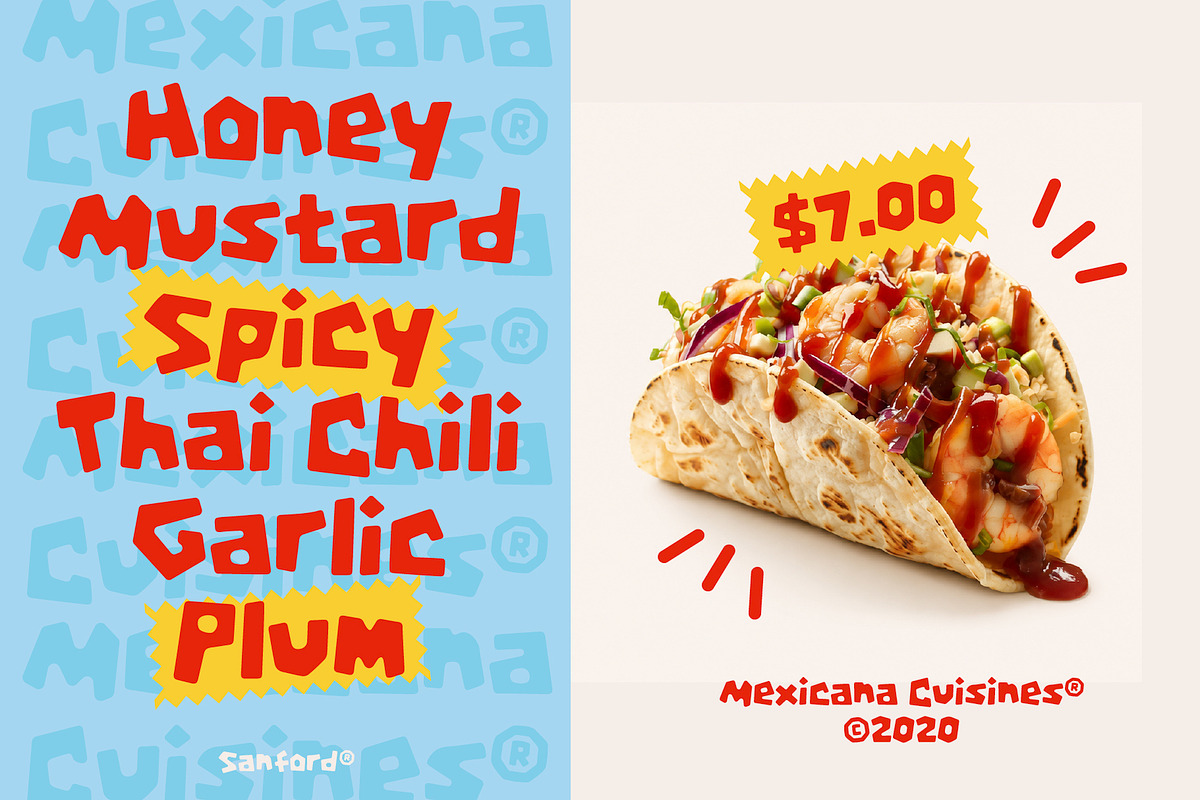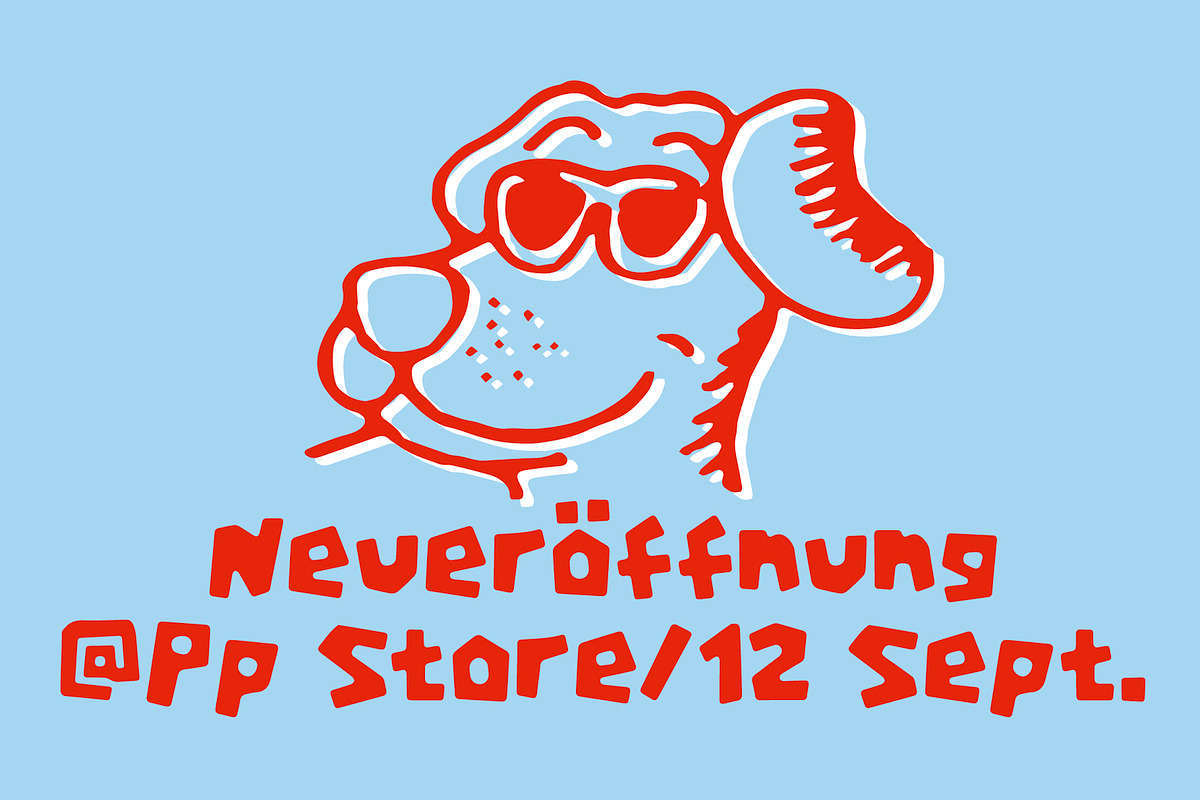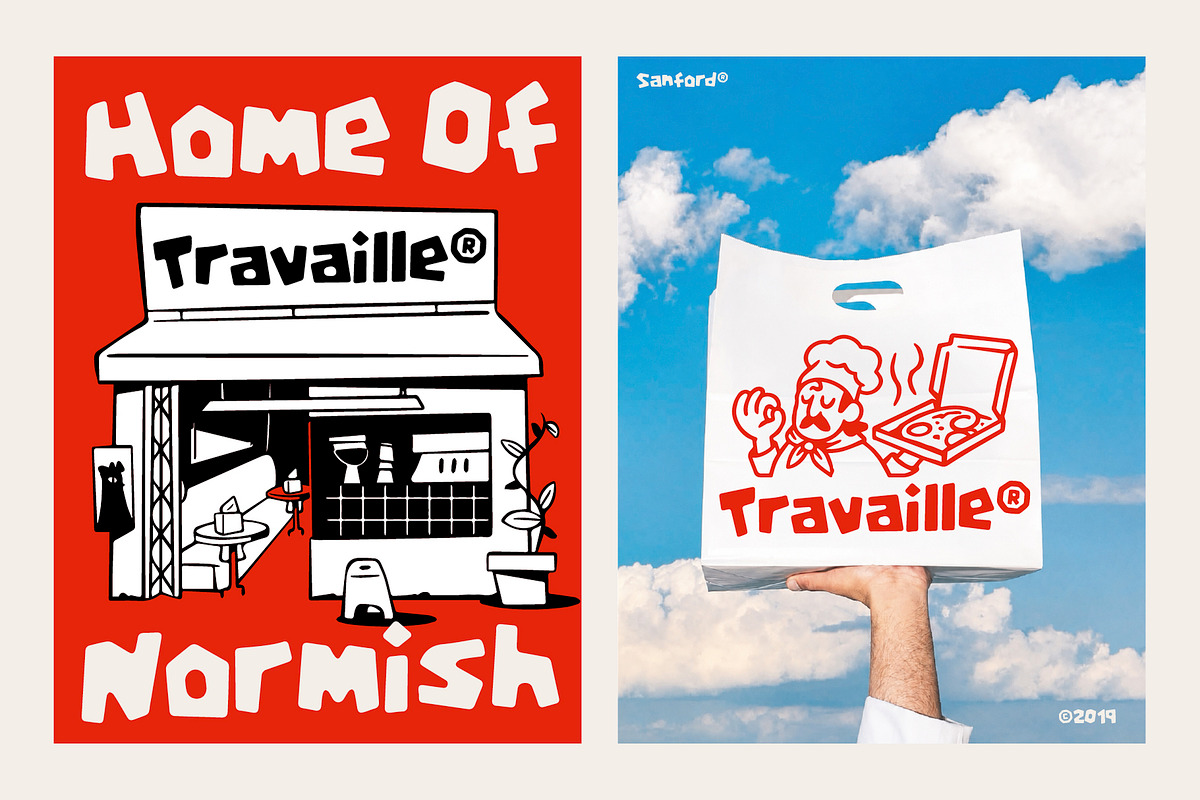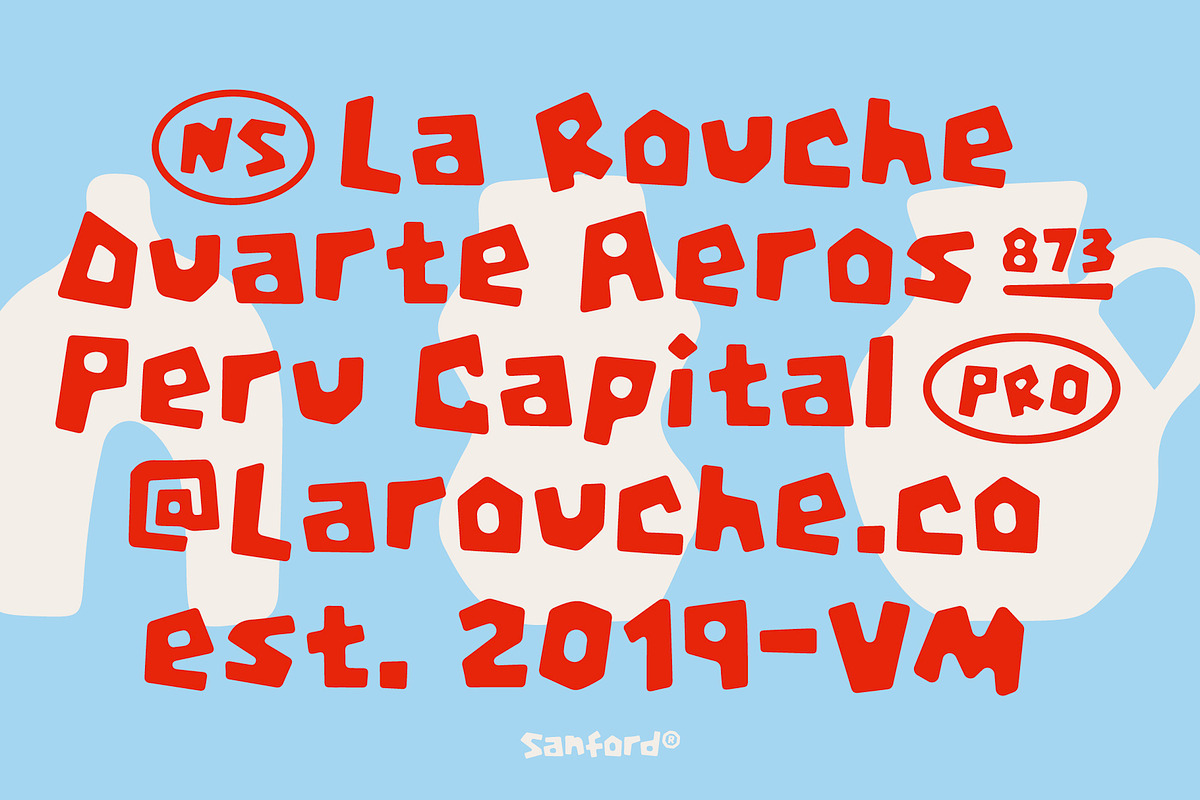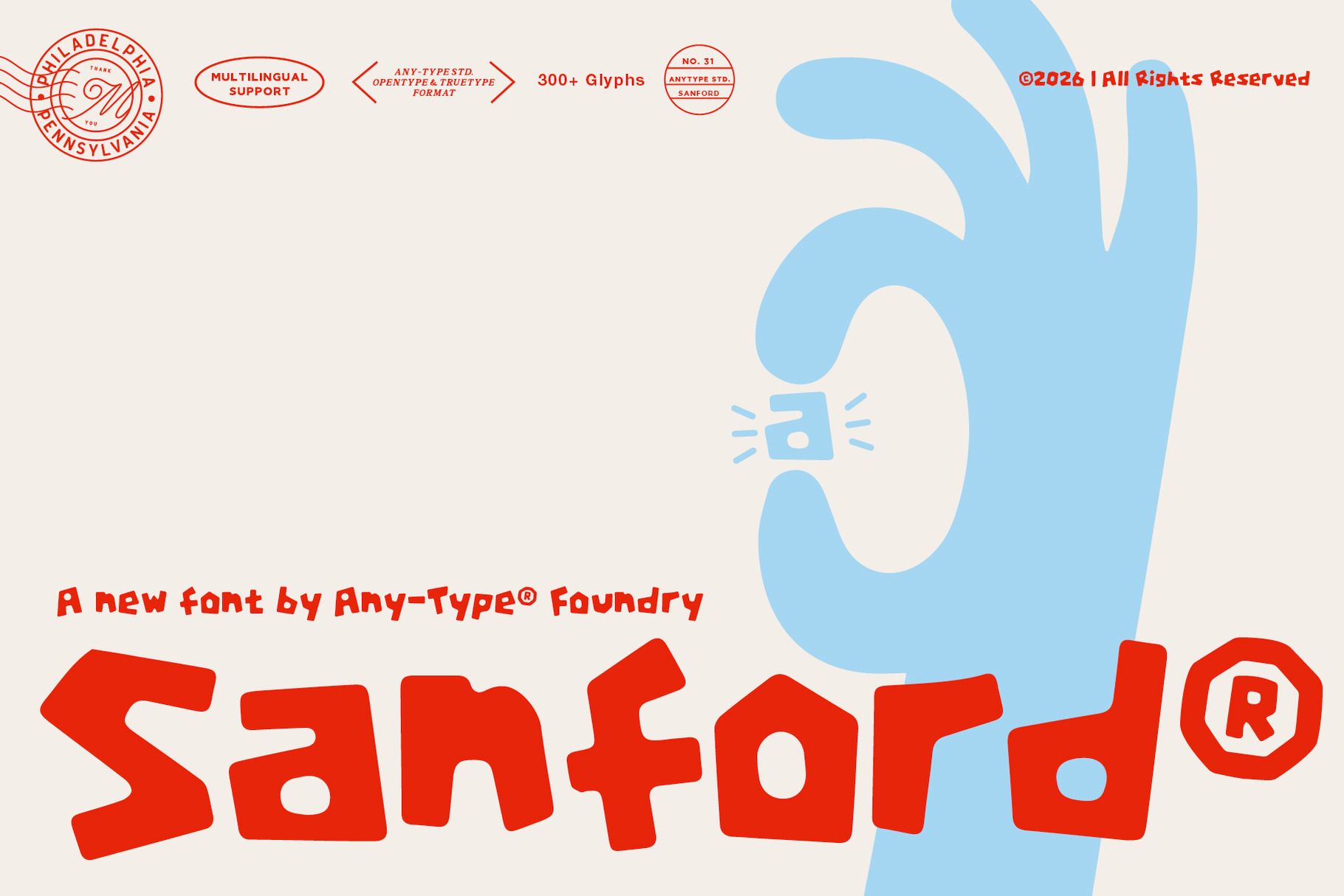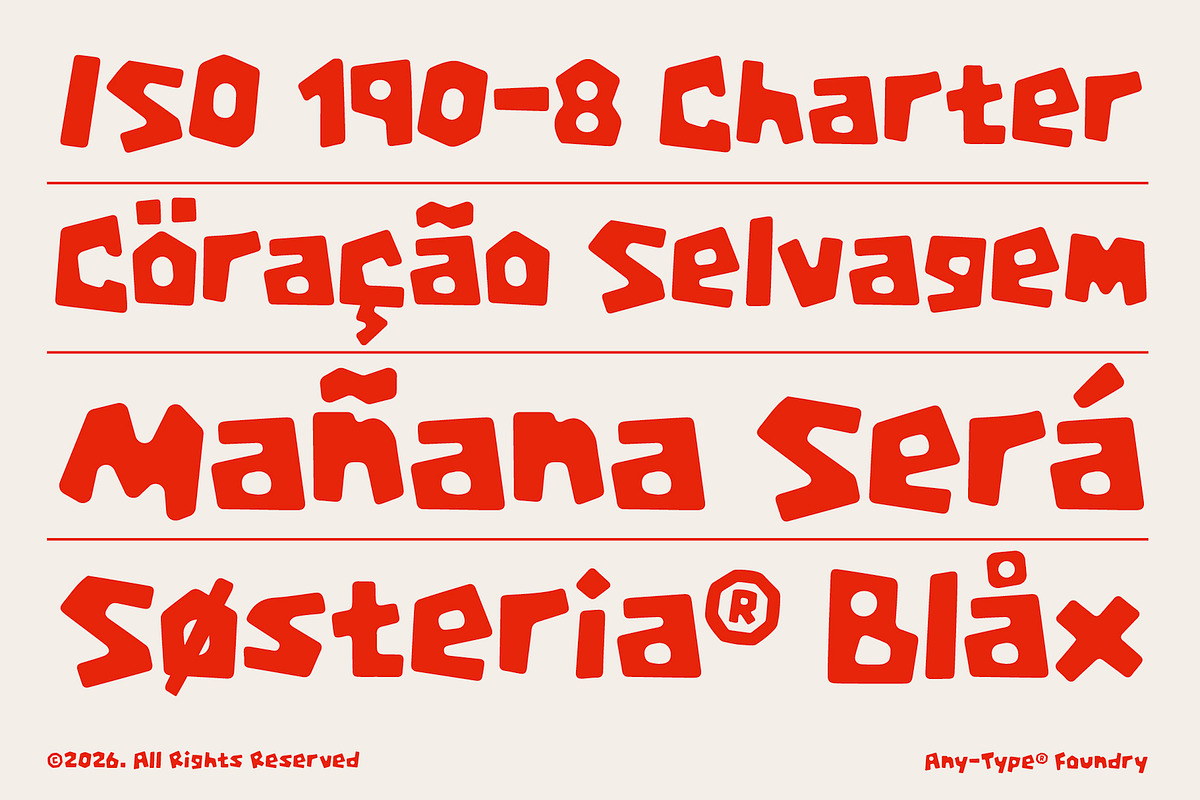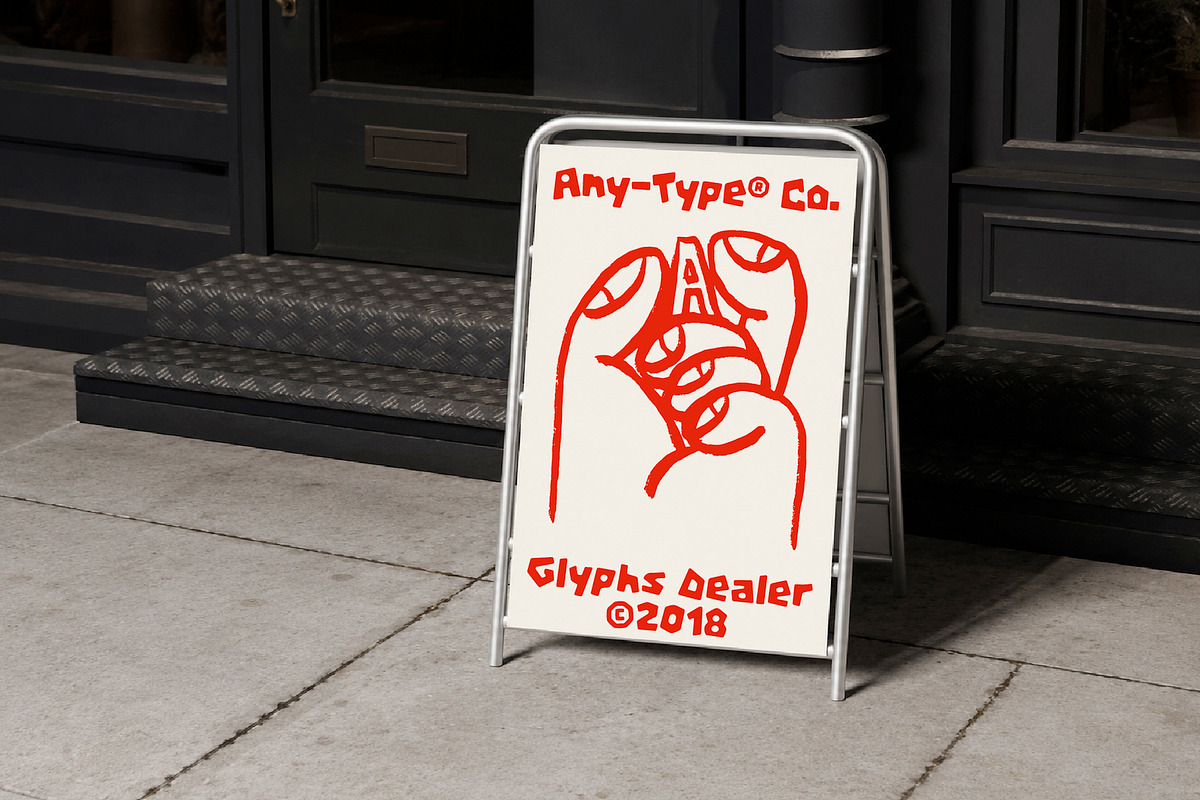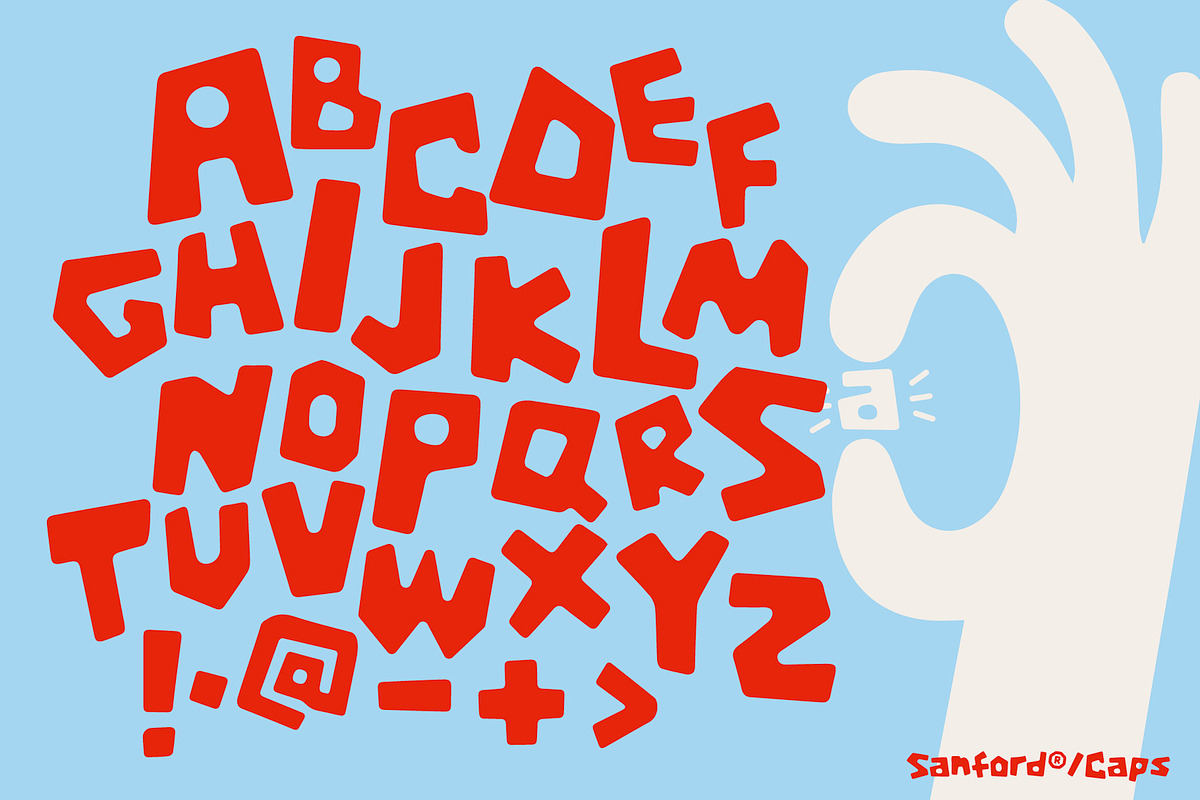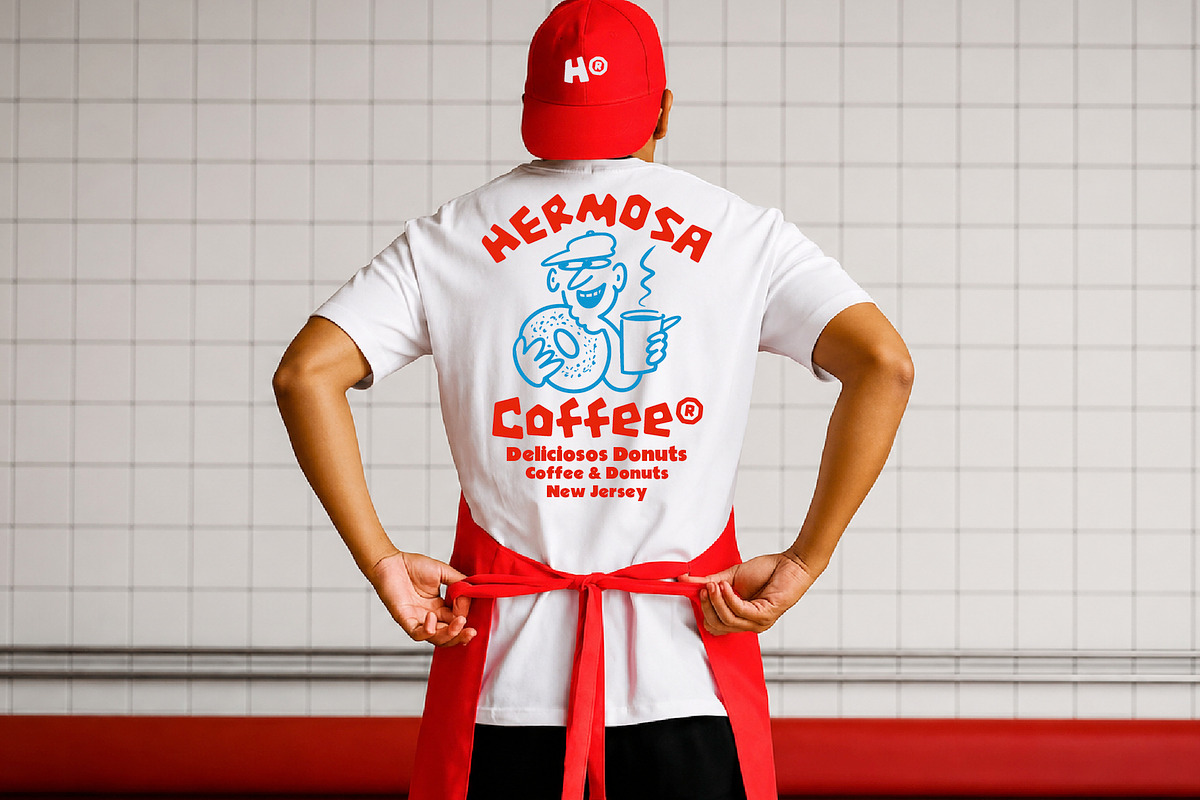
Sanford — Playful Display Font
Sanford is a bold display font packed with playful character and unconventional energy. Its chunky letterforms combine geometric construction, irregular angles, and subtly distorted proportions, creating a distinctive handmade appearance that feels expressive without losing its visual impact.
Each character has its own personality. Uneven silhouettes, sharp cuts, compact counters, and unexpected structural details give Sanford a fun and spontaneous rhythm. The result is a typeface that feels quirky, rebellious, and confidently different—perfect for designs that need to stand out immediately.
Sanford works especially well for posters, headlines, branding, packaging, merchandise, album covers, editorial layouts, social media graphics, stickers, children’s products, and creative promotional materials. Use it at large sizes to highlight its playful shapes and unique character construction.
The font includes uppercase and lowercase letters, numerals, punctuation, symbols, currency signs, and extensive multilingual characters, making it suitable for a wide range of international creative projects.
Numerals and extensive punctuation
Currency and mathematical symbols
Multilingual Latin support
Bold, playful, and irregular letterforms
Ideal for headlines and display typography
Bring more personality, movement, and playful imperfection into your work with Sanford—a display font made for bold ideas and unforgettable visuals.